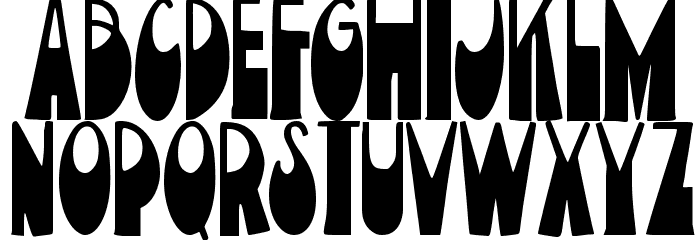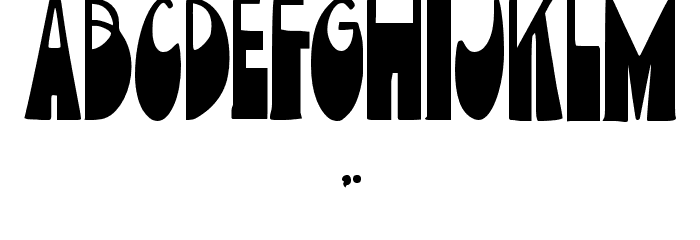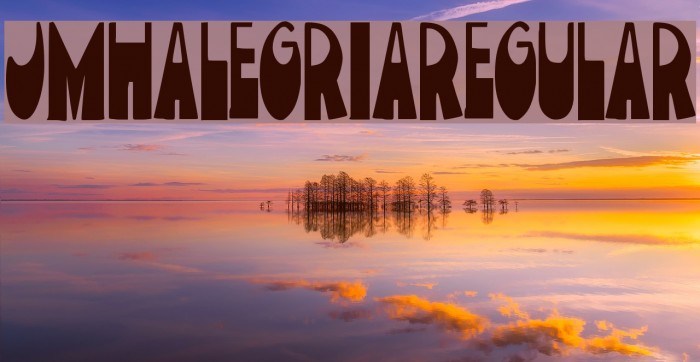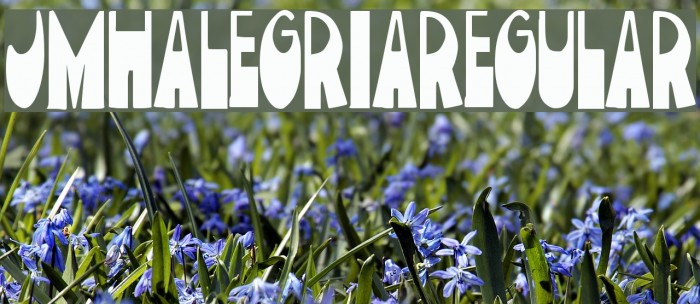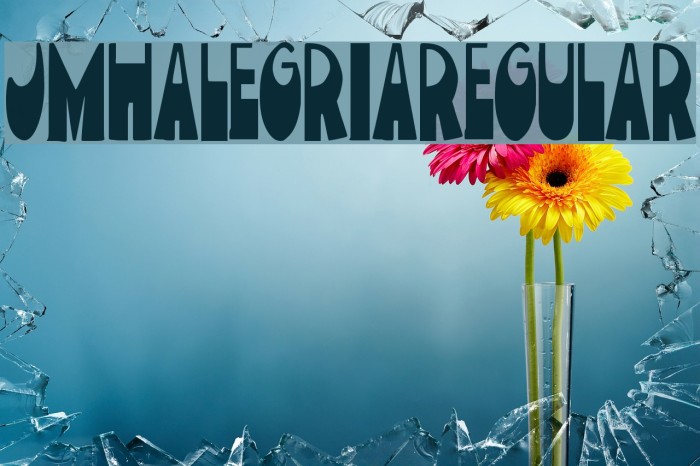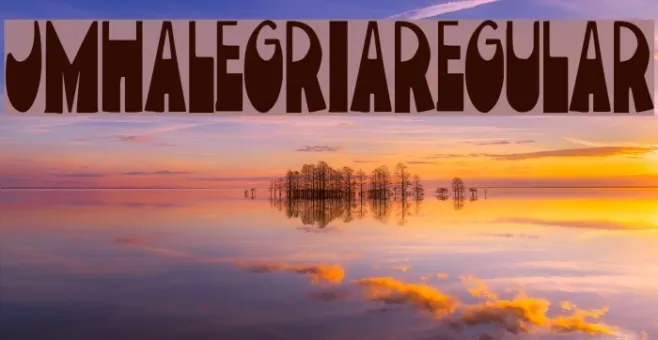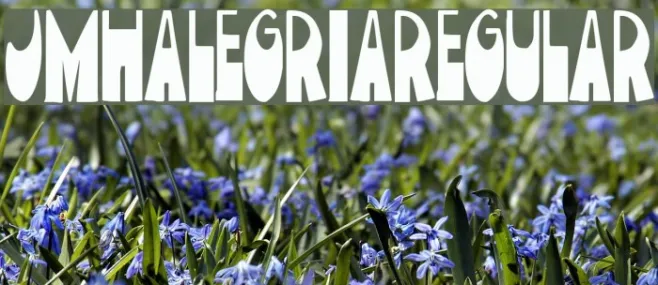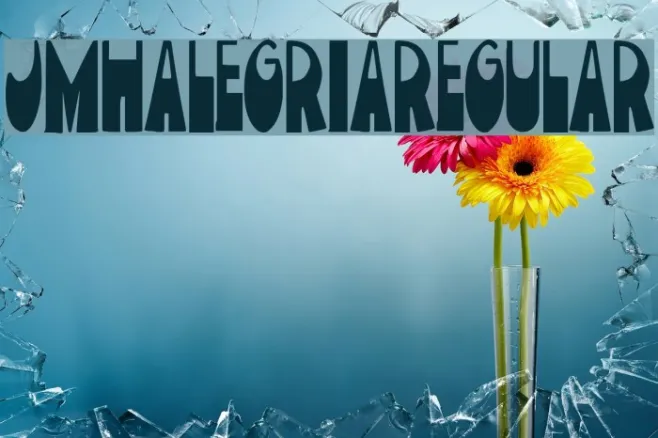
JMHAlegria-Regular Font
This font features a bold and playful design with exaggerated curves and thick strokes. The uppercase letters are particularly striking, with a mix of rounded and angular forms that create a dynamic and energetic appearance. The lowercase letters maintain the same boldness, offering a consistent look throughout. The numbers and special characters are equally bold, ensuring they stand out in any design. This font is ideal for projects that require a strong visual impact and a sense of fun.
A bold, playful font with exaggerated curves and thick strokes.
- Proposed Projects: Ideal for posters, children's books, playful branding, and eye-catching headlines.
- Overall Style: Playful, Energetic